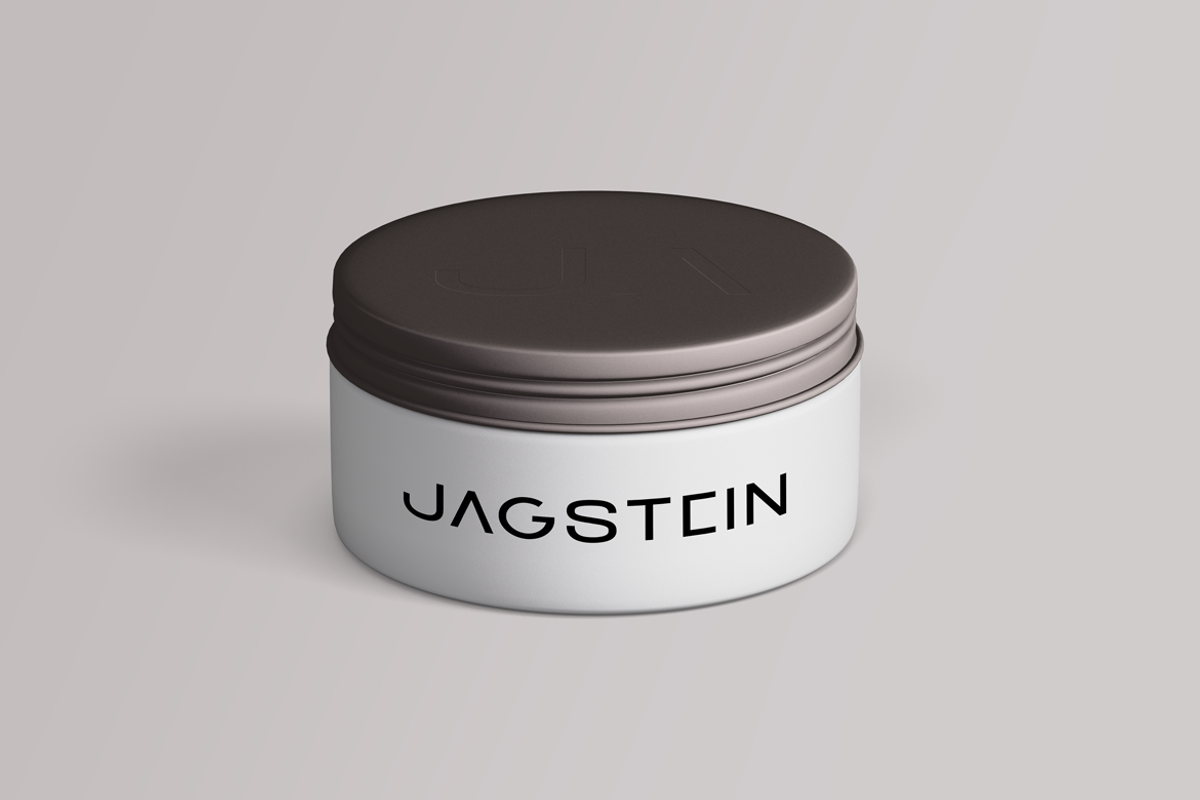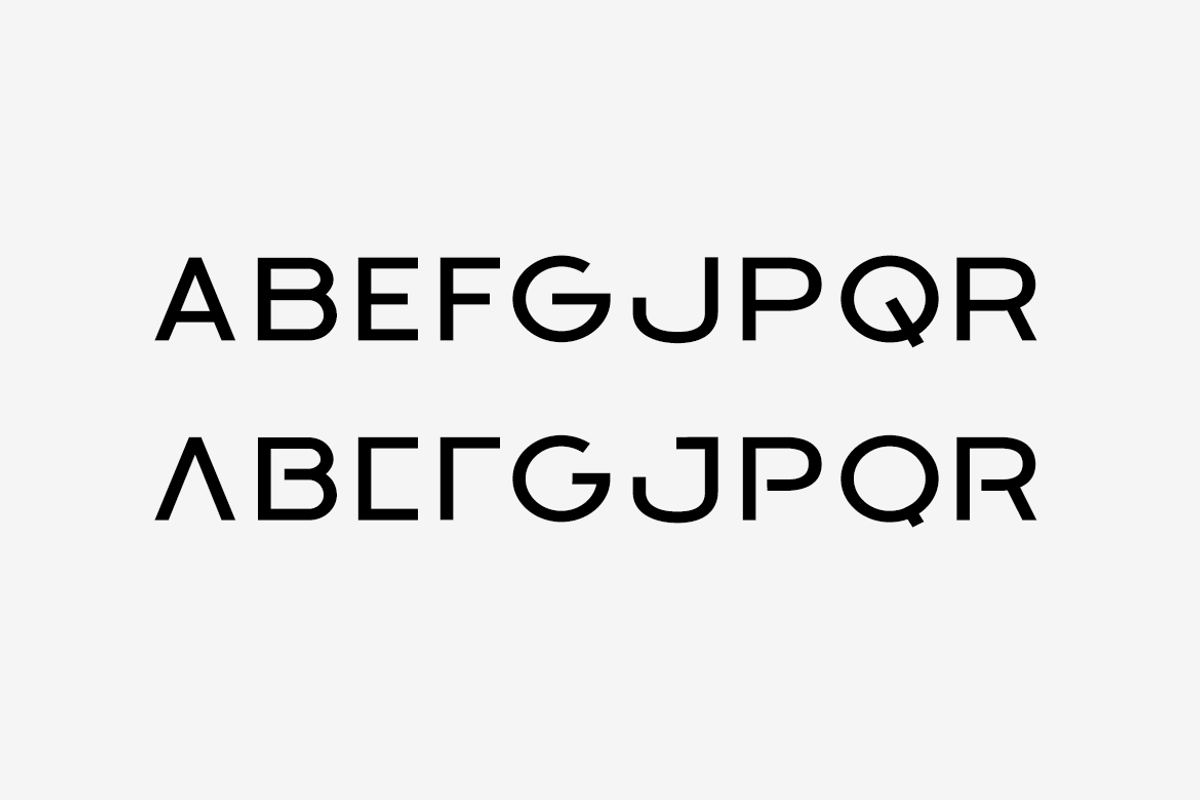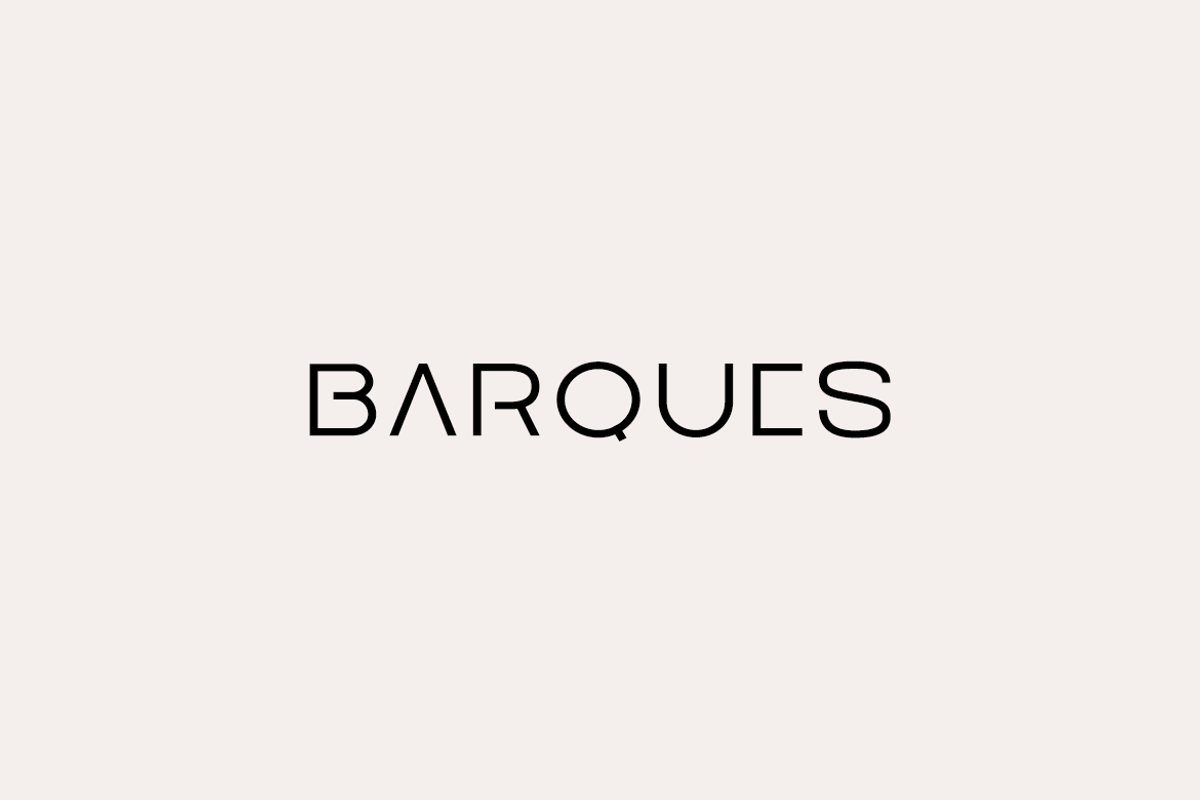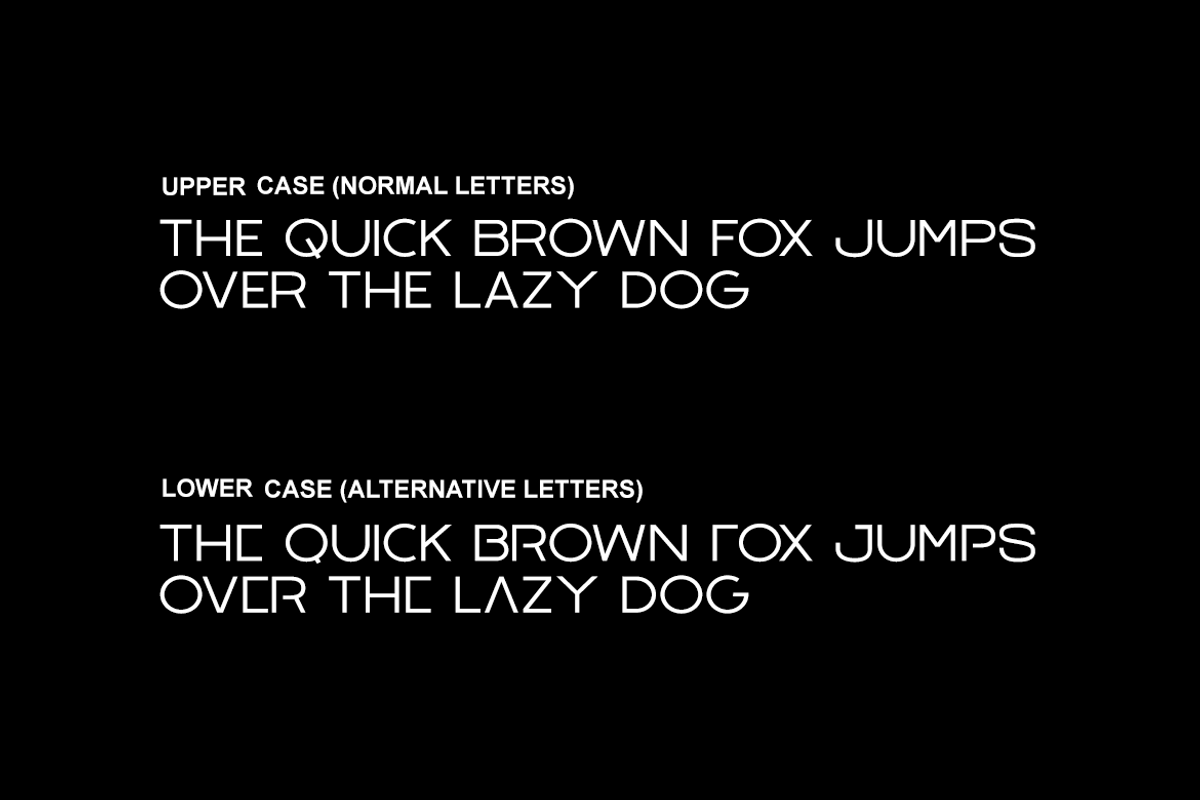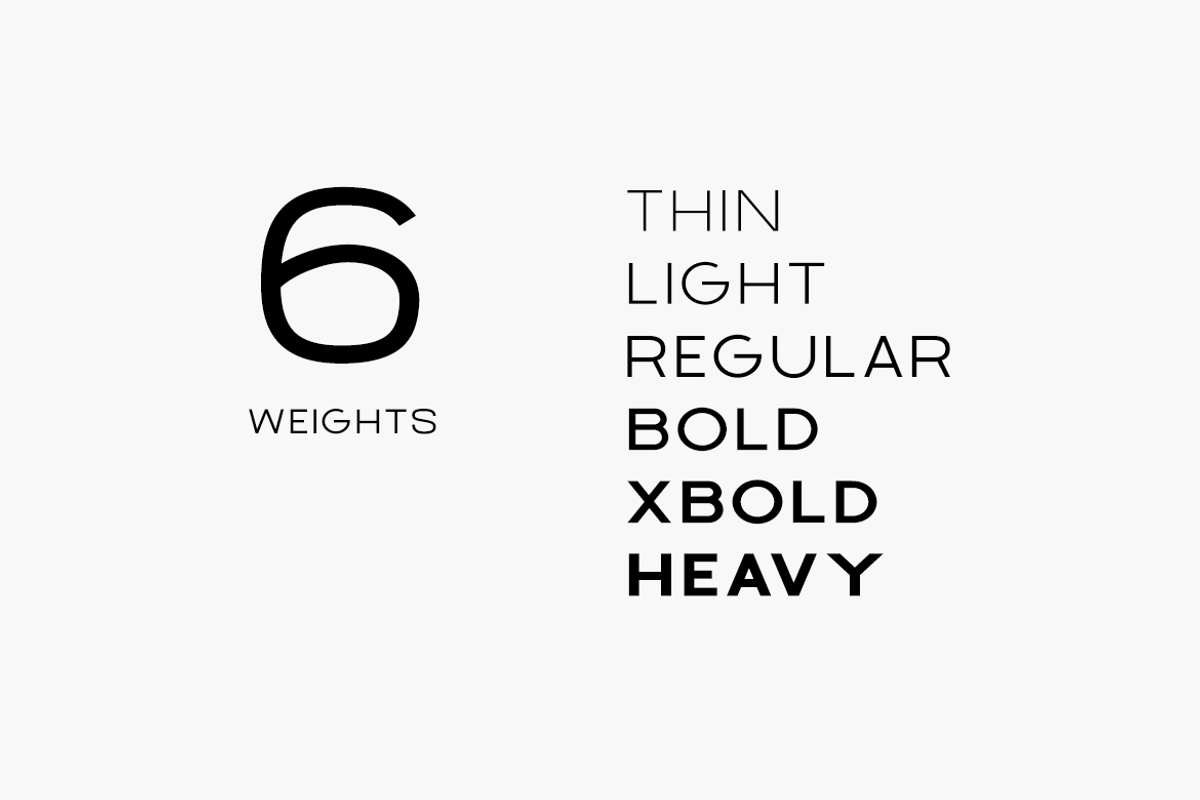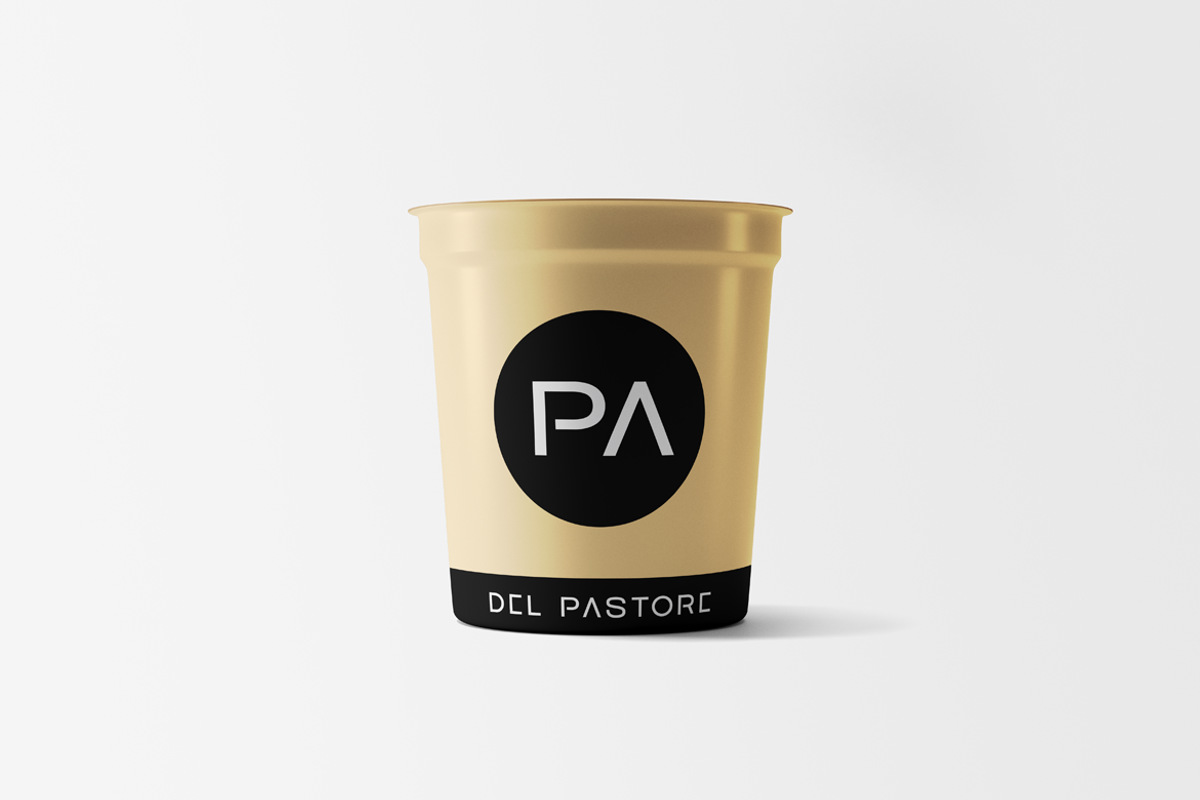
BARQUES - Display / Logo Typeface
A truly unique & modern typeface designed for particularly for Display / Headline / Logotype Design and Branding purposes, BARQUES is a specially handmade typeface best suited for creating nicely looking logos, brand identities and headlines.
This all-caps typeface contains Normal Letters (Upper Case) as well as Alternative Letters (Lower Case) with unique design. You can simply mix-match the case to form different style of letters to create amazing logotypes and headlines - Just see the demo images given above for an abstract idea about the capability of this typeface.